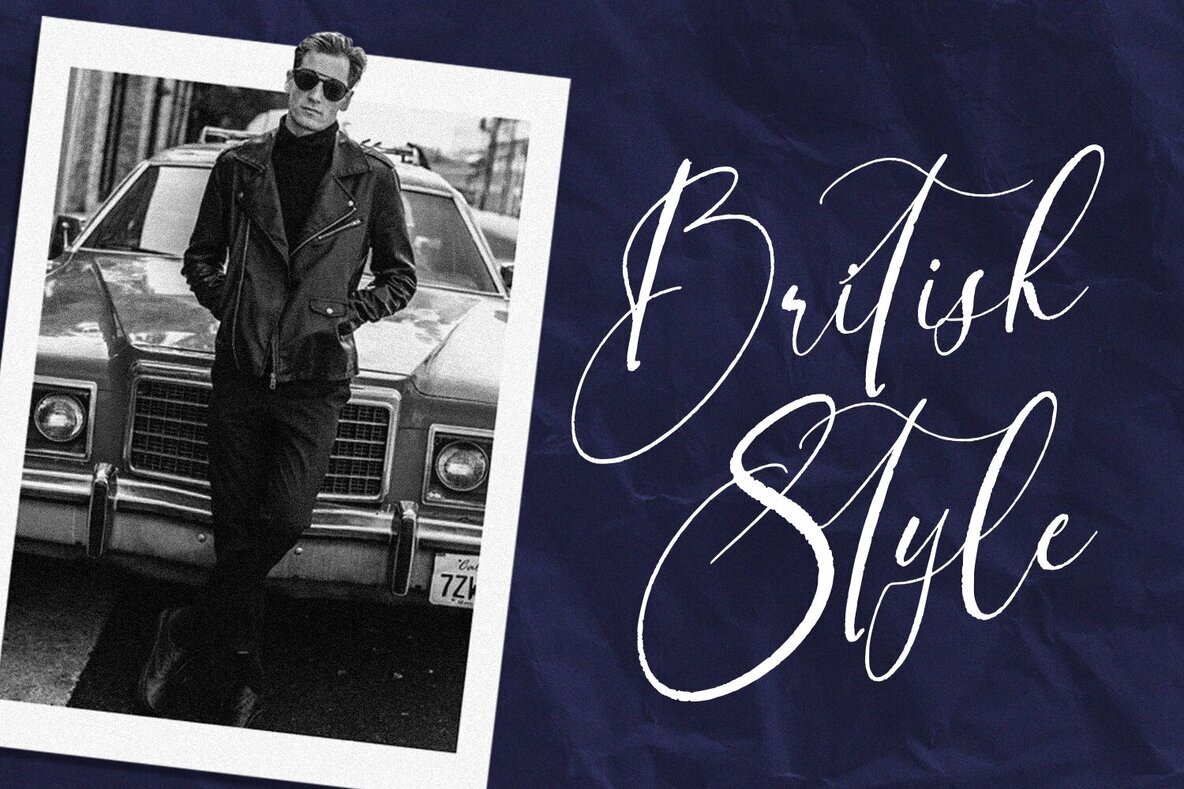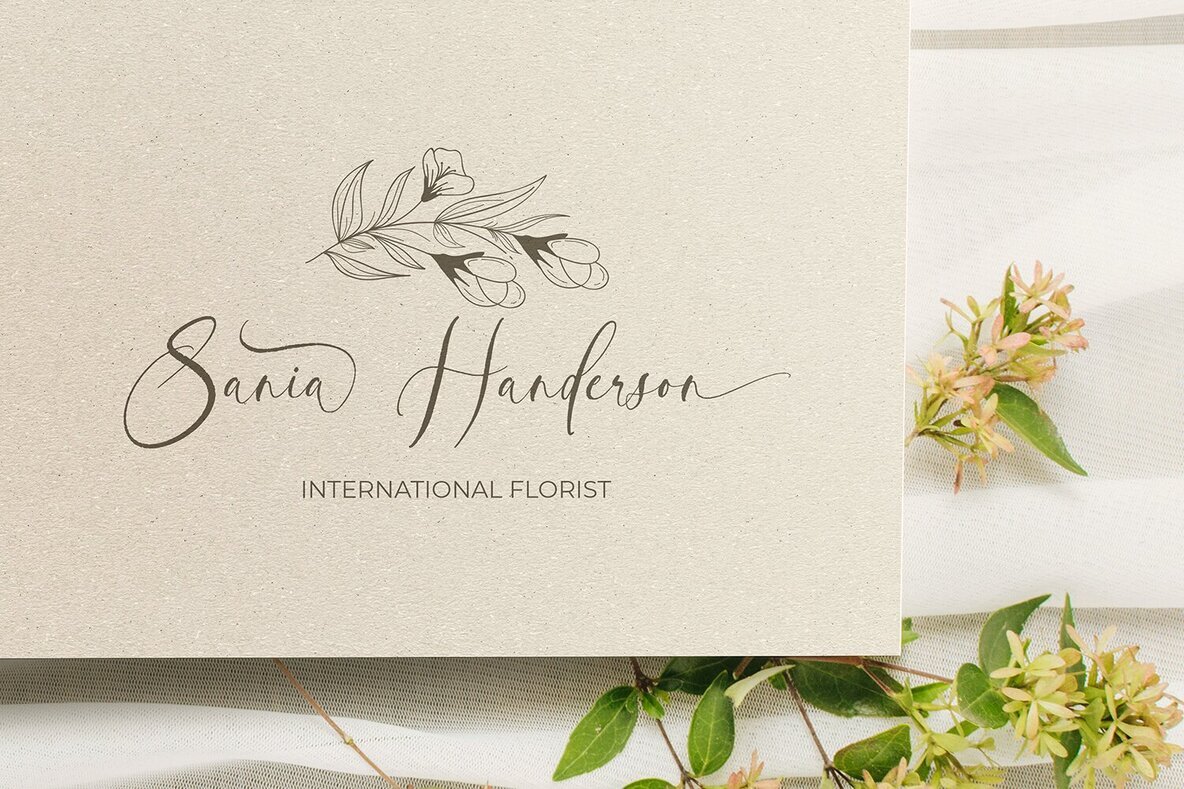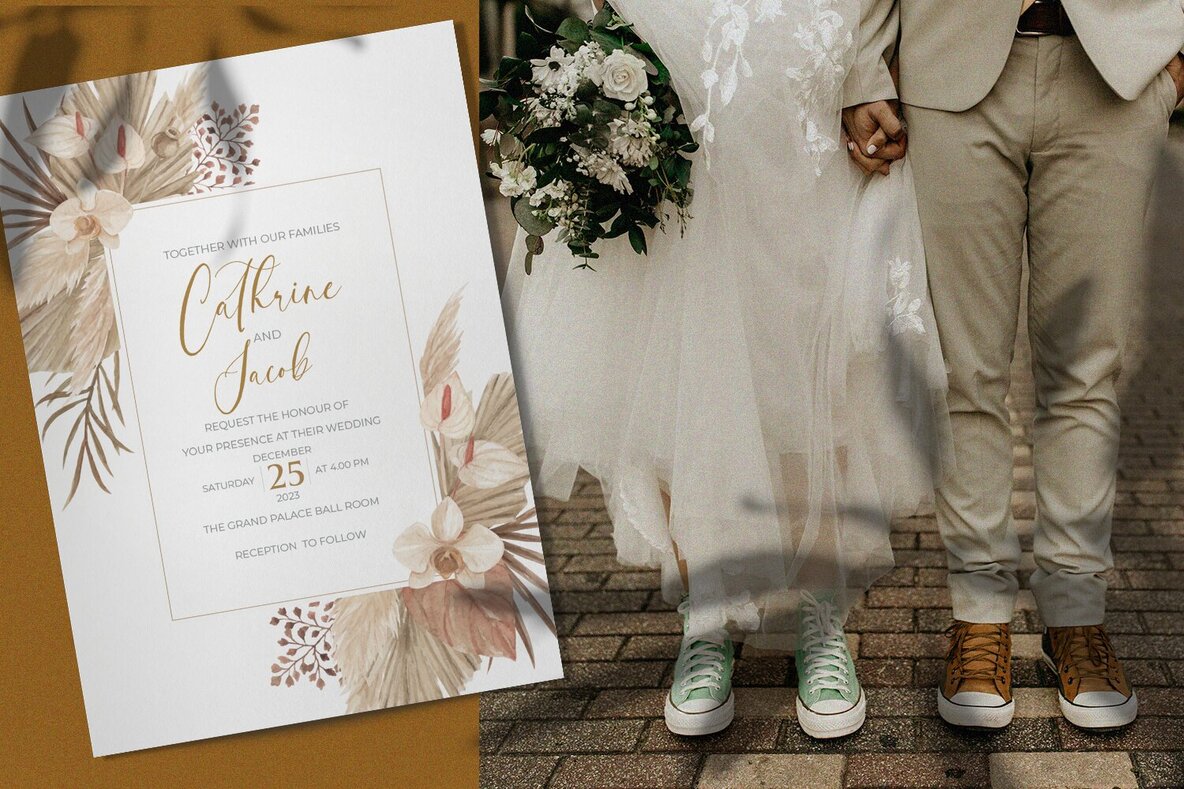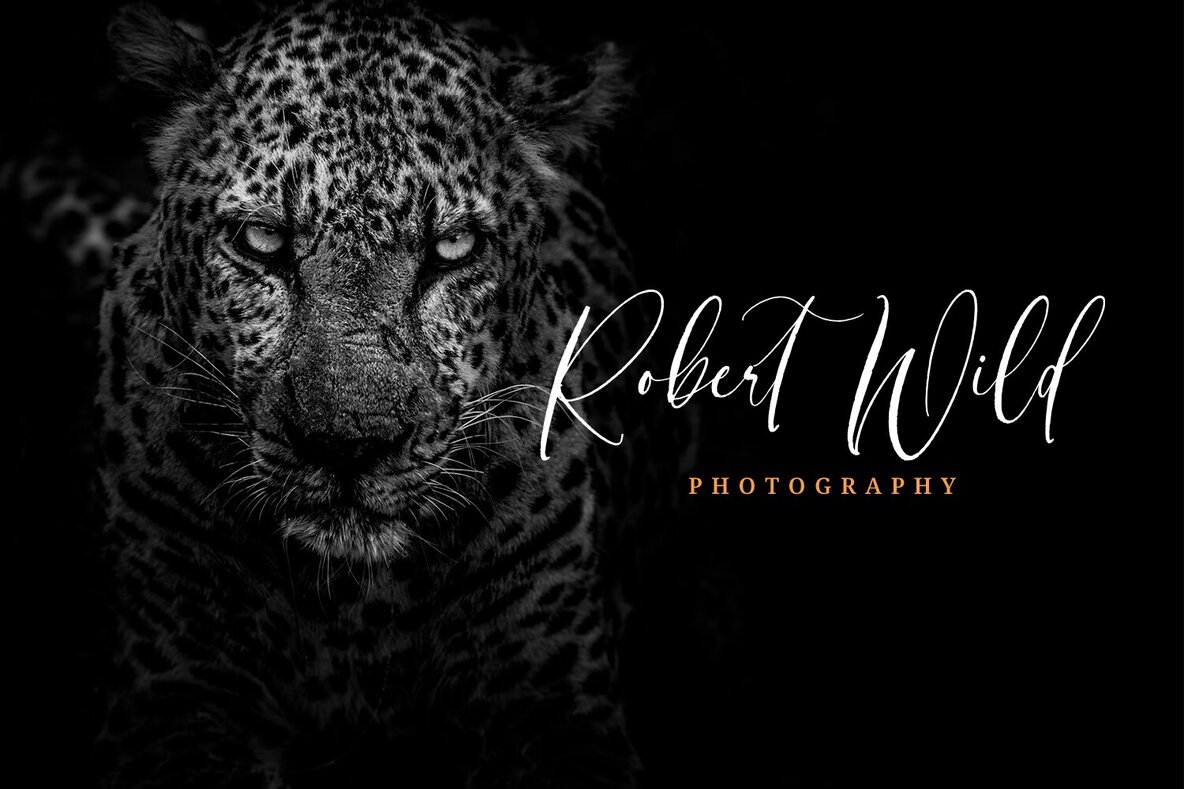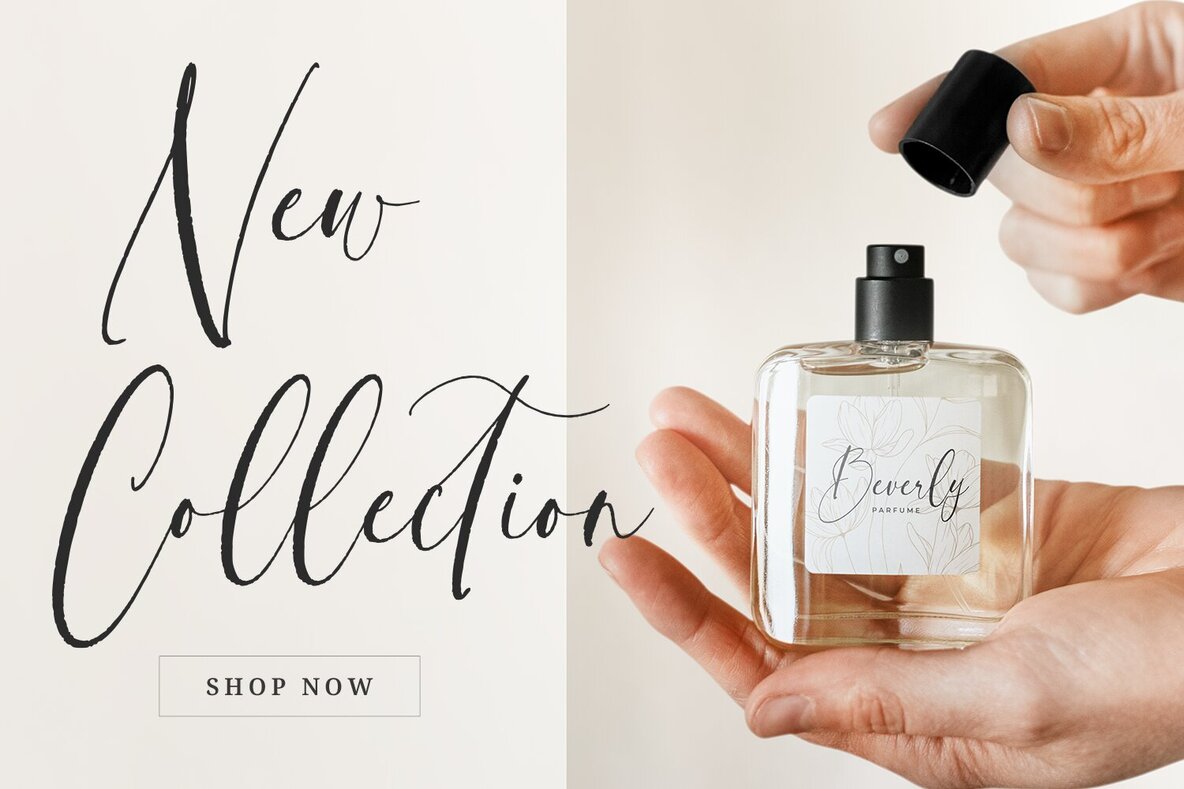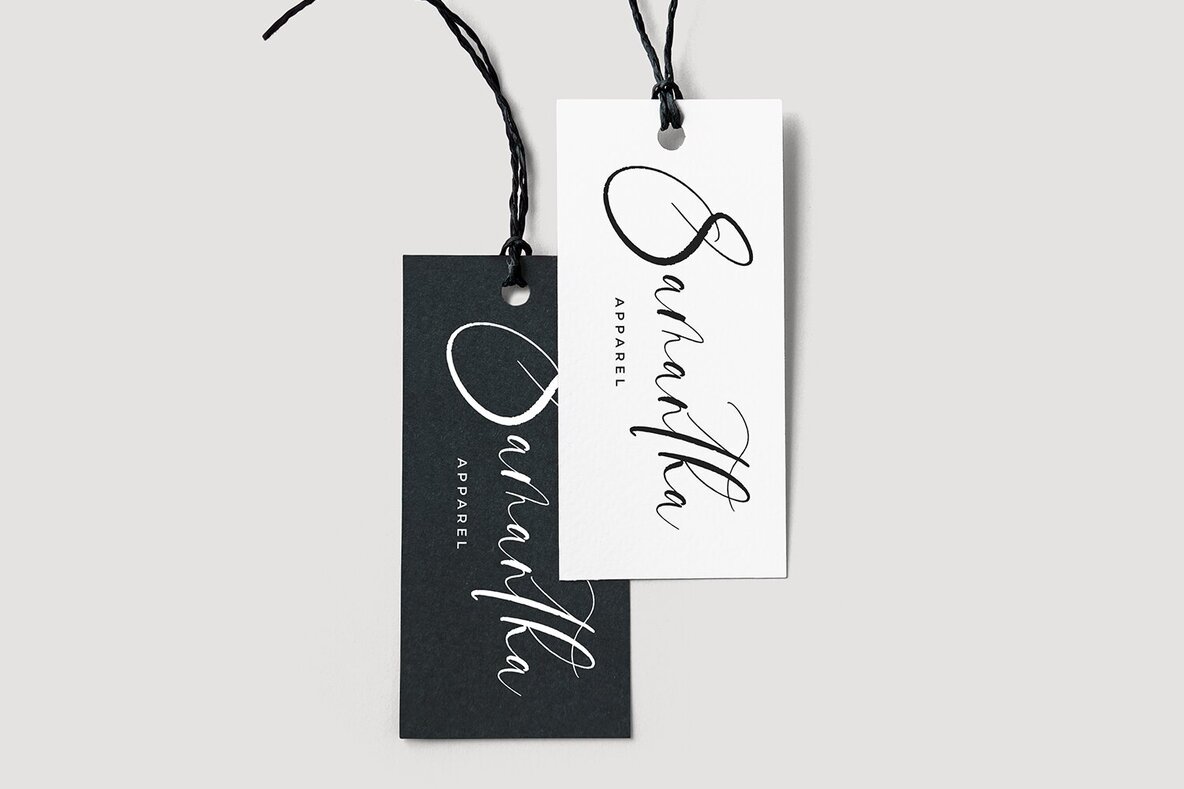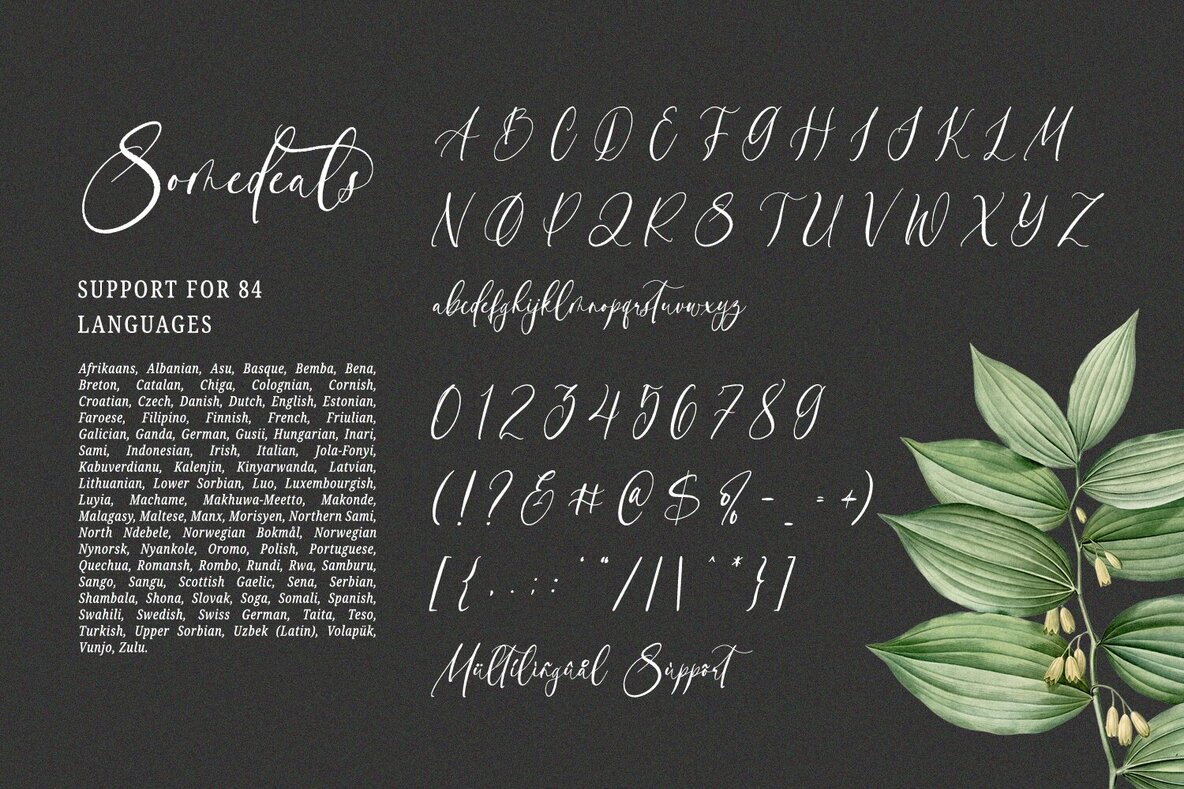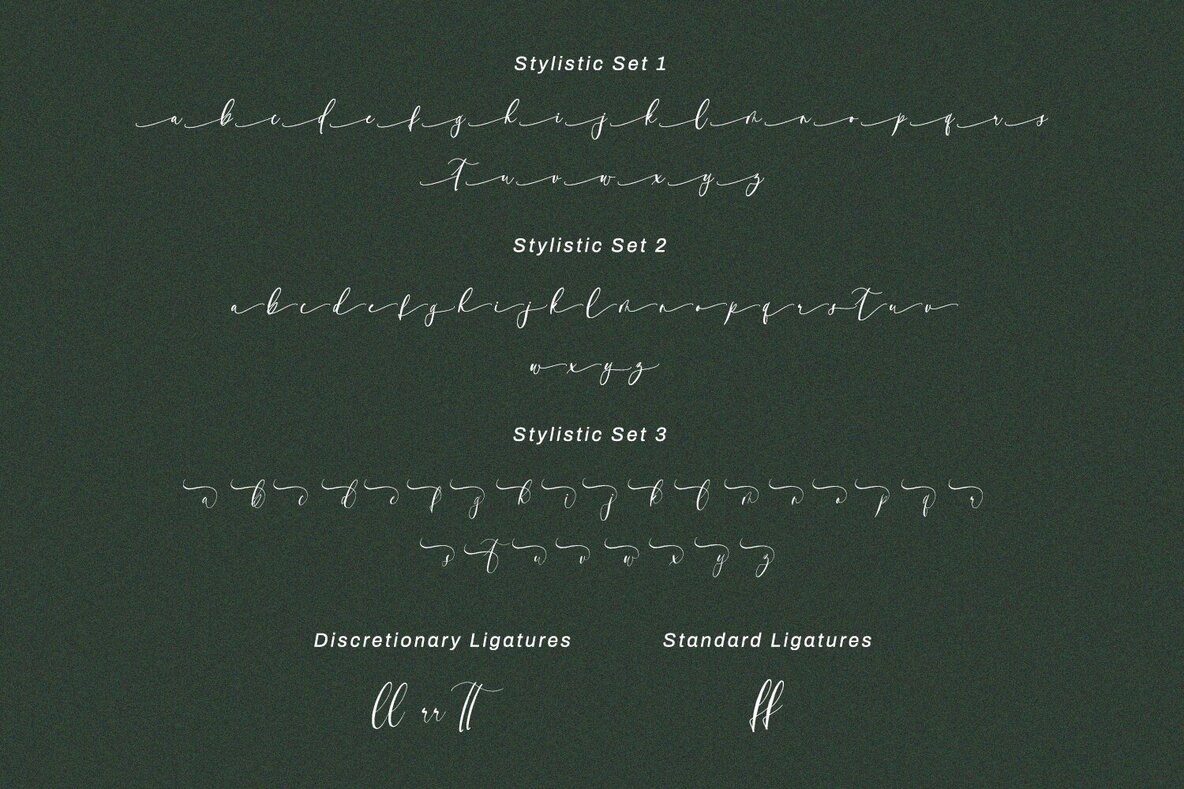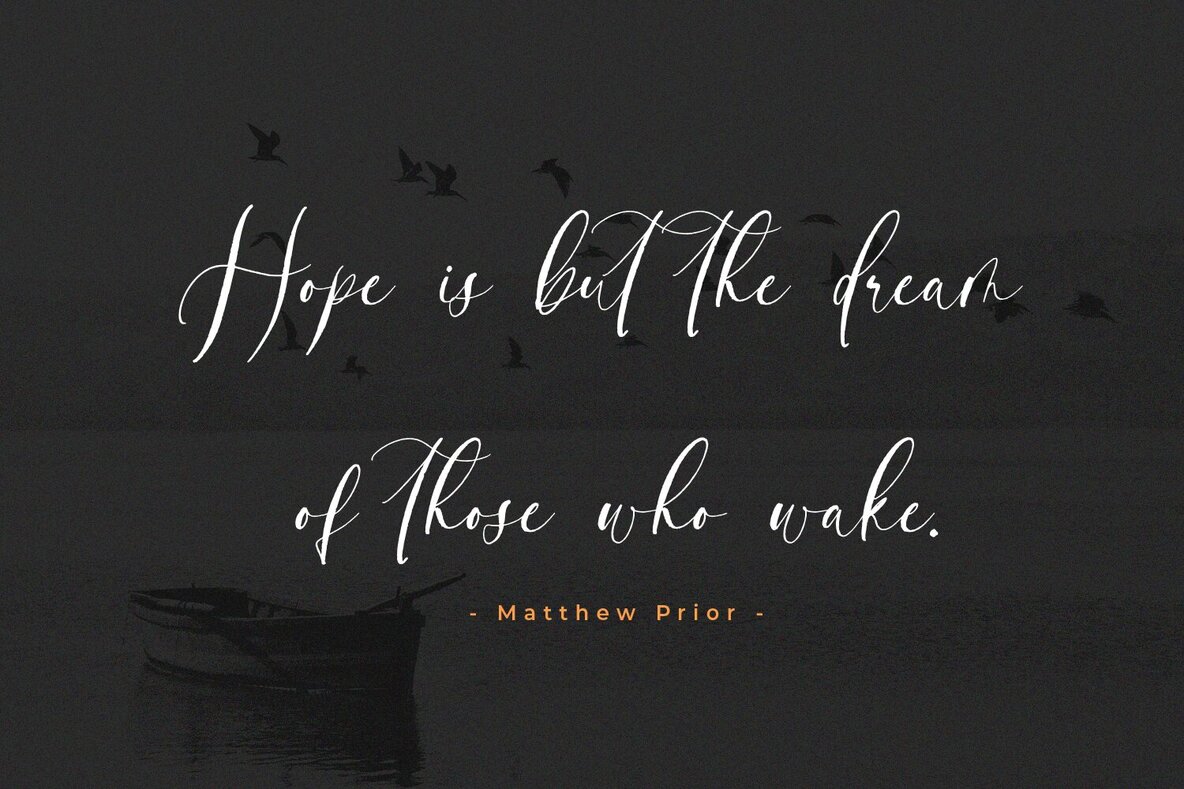
Somedeals Font
Somedeals Regular
Somedeals is a script font that captures the elegance of cursive handwriting with fluid, seamless letterforms. Its design evokes the charm of handwritten notes, making it ideal for creating an authentic and personal touch in your projects. The font features high letter contrast, adding a dynamic and eye-catching quality that enhances visual appeal and allows each word to stand out. For optimal legibility, this font is best used in larger text sizes.
Somedeals is versatile, perfect for headlines, logos, movie posters, flyers, invitations, greeting cards, branding materials, print media, editorial layouts, and headers. Explore its full potential by viewing the font preview.